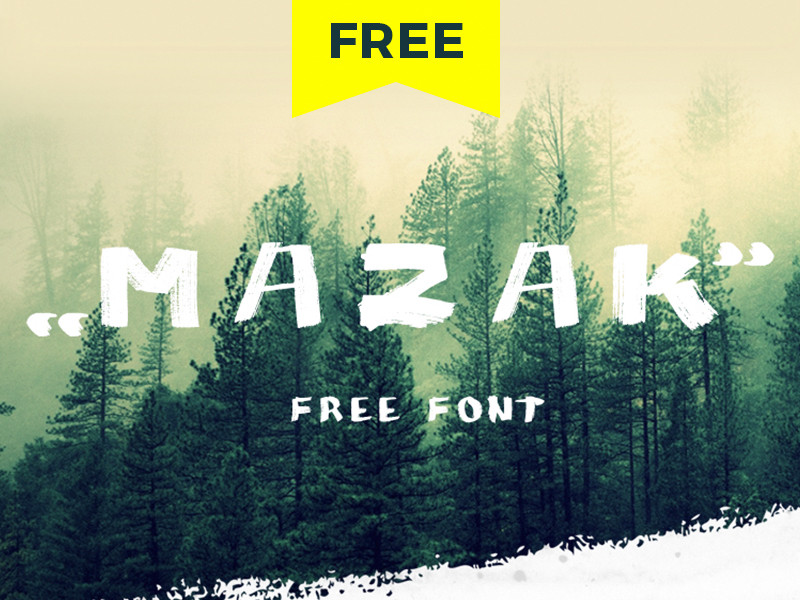
MAZAK Brush Font
Hello buddy! I am happy to present you a modern brush font. If you are looking for a brush style suited to your design then it’s here! Introducing MAZAK Brush Font. This is a brush hand drawn vector free font. Available for free to download in AI format and otf. A slightly rough hand drawn style is so natural, and I think it will be something new for your design!) Fonts are perfect for logotype creation, lettering compositions, wedding invitations, fashion projects, book design cover, magazines typography, cards, packagings, posters, branding, blogging and more.